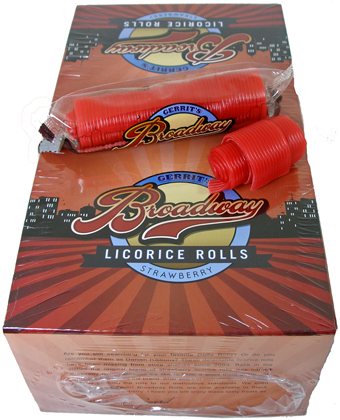
This fun to use old-fashioned script comes with two fonts: LHF Ballpark Script and LHF Ballpark Swashes. LHF Ballpark Swashes includes over 58 different swashes in place of characters, designed to attach to the ends of the Ballpark Script letters. (See below for use). Click here to learn how to use the LHF Ballpark Swashes font. Each letter generates a different design. Download printable keyguide here.